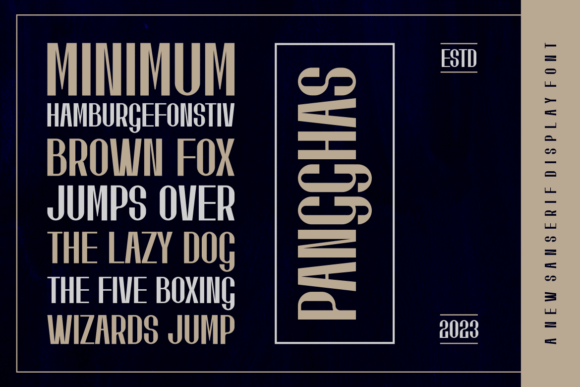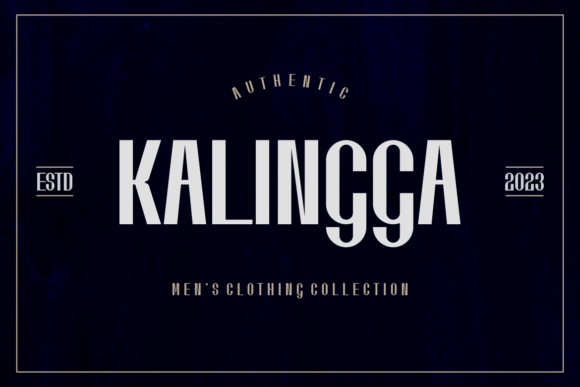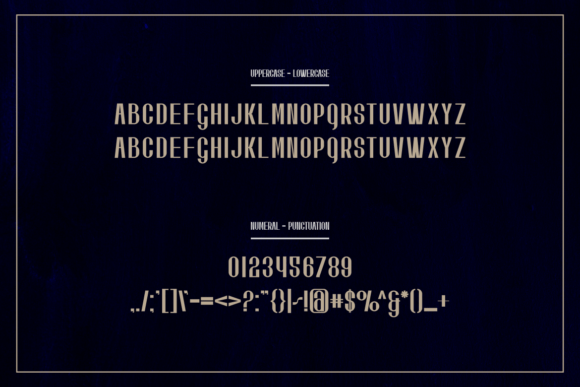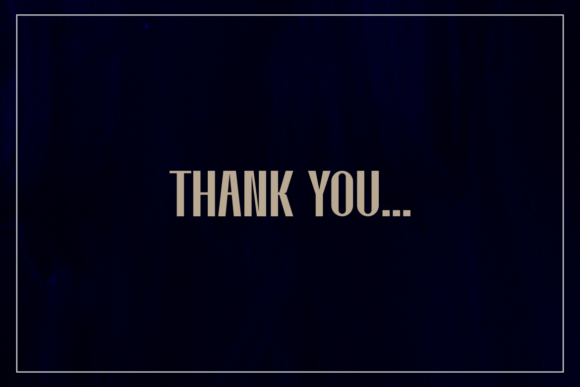
Introduction to Pangghas Font
Imagine you’re working on a new branding project and you’re struggling to find the perfect font that captures the essence of your creative vision. The right font can make all the difference between a bland design and a truly unforgettable one. That’s where the Pangghas Font comes in – a modern, bold, and authentic display font that’s perfect for logos, esports, and any other creative project that demands attention.
Key Features of Pangghas Font
- Unique and Creative Design: The Pangghas Font is designed to provide a distinctive and creative look for your projects, making it a valuable design resource.
- High-Quality Typography: This font offers high-quality typography with clear and legible text, perfect for a variety of creative projects.
- Transparent Background: The Pangghas Font features a transparent background, allowing for seamless integration with other design elements and backgrounds.
- High-Resolution Design: The Pangghas Font is designed at high resolution (300 DPI), making it suitable for print and digital projects that require crisp and clear typography.
- Perfect for Creative Projects: The unique design and high-quality typography of the Pangghas Font make it an ideal choice for creative projects, such as logos, branding, and advertising materials.
Honest Review: Pangghas Font
As a designer, I’m always on the lookout for high-quality fonts that can elevate my creative projects. Recently, I stumbled upon the Pangghas Font, and I must say it’s a great addition to any design resource.
What works well: ✨ The Pangghas Font is incredibly versatile, making it suitable for a wide range of design projects, from logos to typography-based art. The font is also available for free download, which is a definite bonus. The high-quality design ensures that the font looks sharp and clear, even at smaller sizes.
- ✨ Transparent background: This feature allows for seamless integration with any background, making it easy to customize and adjust to your design needs.
- ✨ Wide language support: The Pangghas Font supports a wide range of languages, making it an excellent choice for international projects.
However, there are a few limitations to consider: ⚠️ The font might not be the best choice for extremely small text sizes, as it can become slightly distorted. Additionally, some users may find the font’s unique style to be too unconventional for certain design projects.
Overall, I’m impressed with the Pangghas Font, and I’d definitely recommend it as a valuable design resource. Its high quality, versatility, and transparent background make it a great addition to any creative project.
The Pangghas Font is suitable for various creative projects, including graphic design, digital art, and typography-based art. Its unique design makes it an excellent choice for branding, logos, and advertising materials.